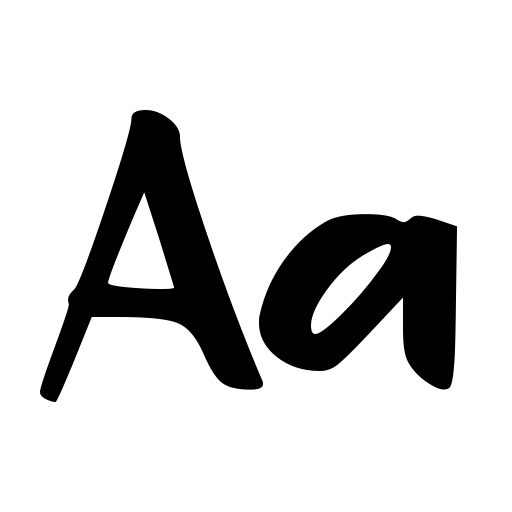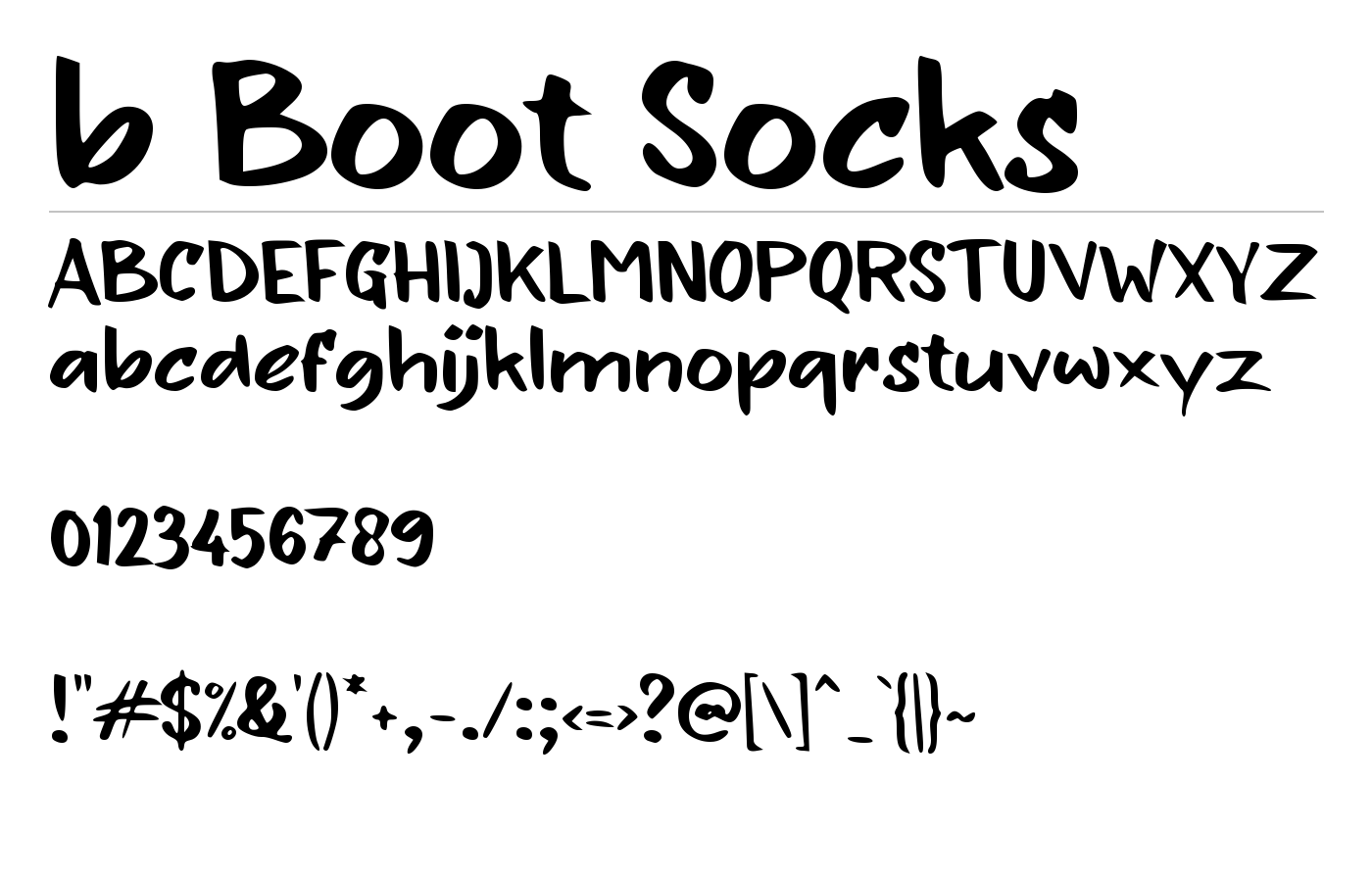
b Boot Socks is a playful, casual handwritten sans serif font with a friendly and approachable feel. Its irregular strokes and slightly chunky, uneven letterforms give it a relaxed, hand-drawn character that works wonderfully for creative, informal designs like children’s books, posters, and fun branding projects. This font’s lively personality makes it perfect for adding a personal, whimsical touch to headlines, logos, and packaging.
b Boot Socks Font
About b Boot Socks Font